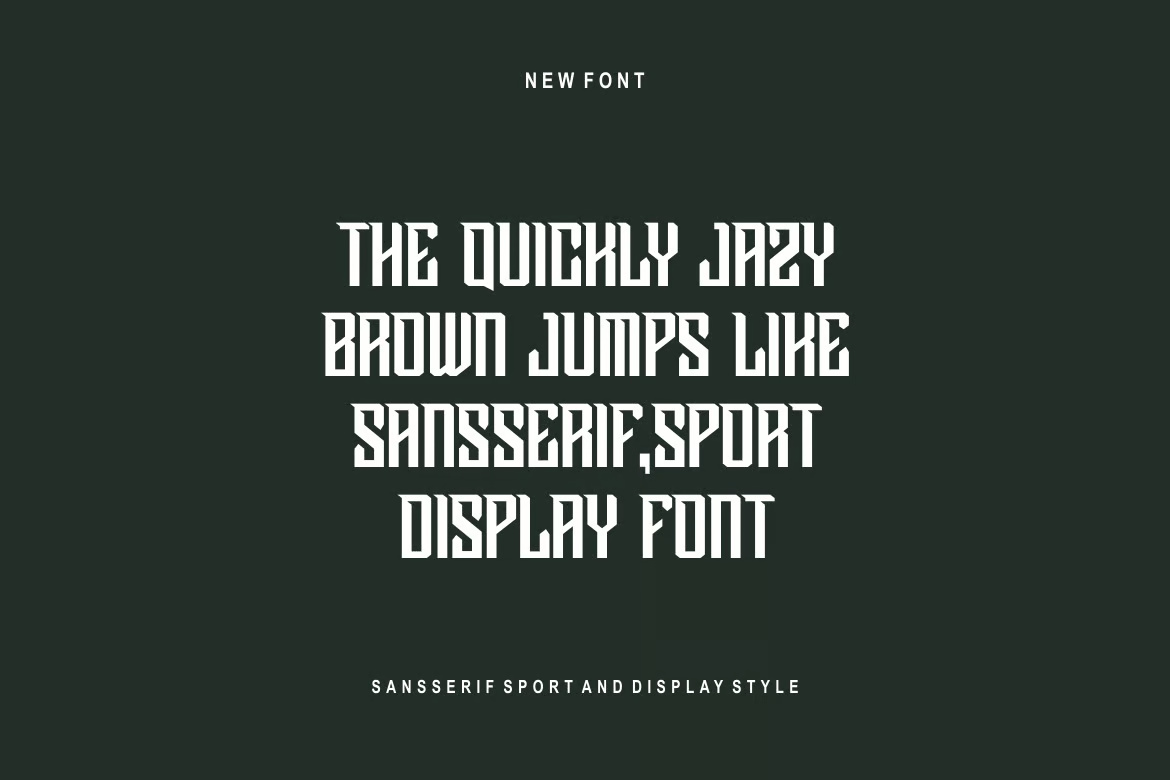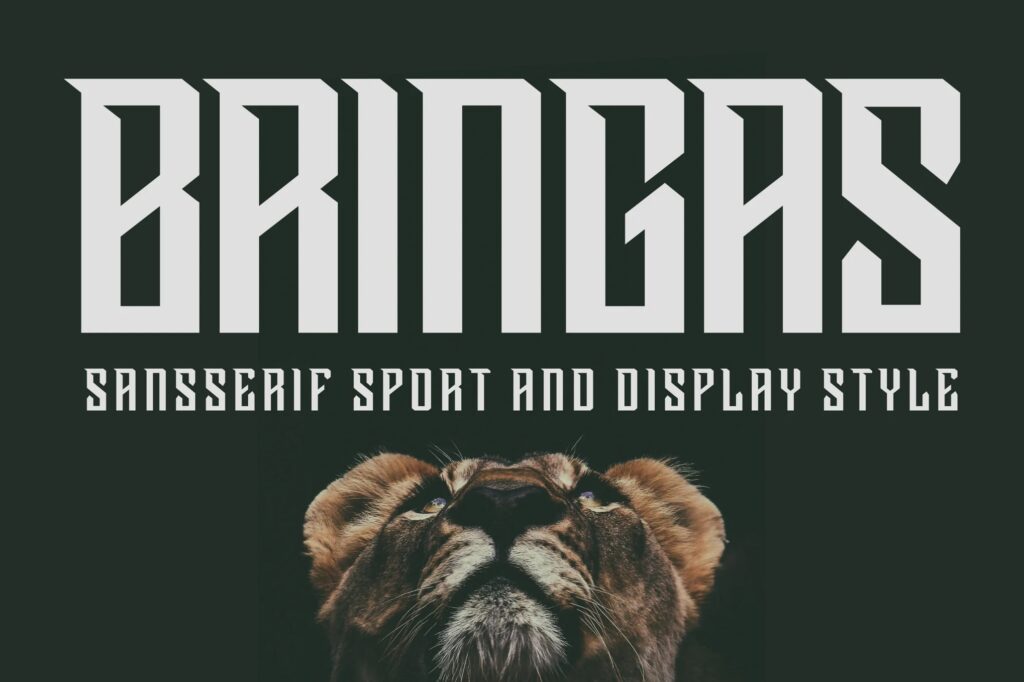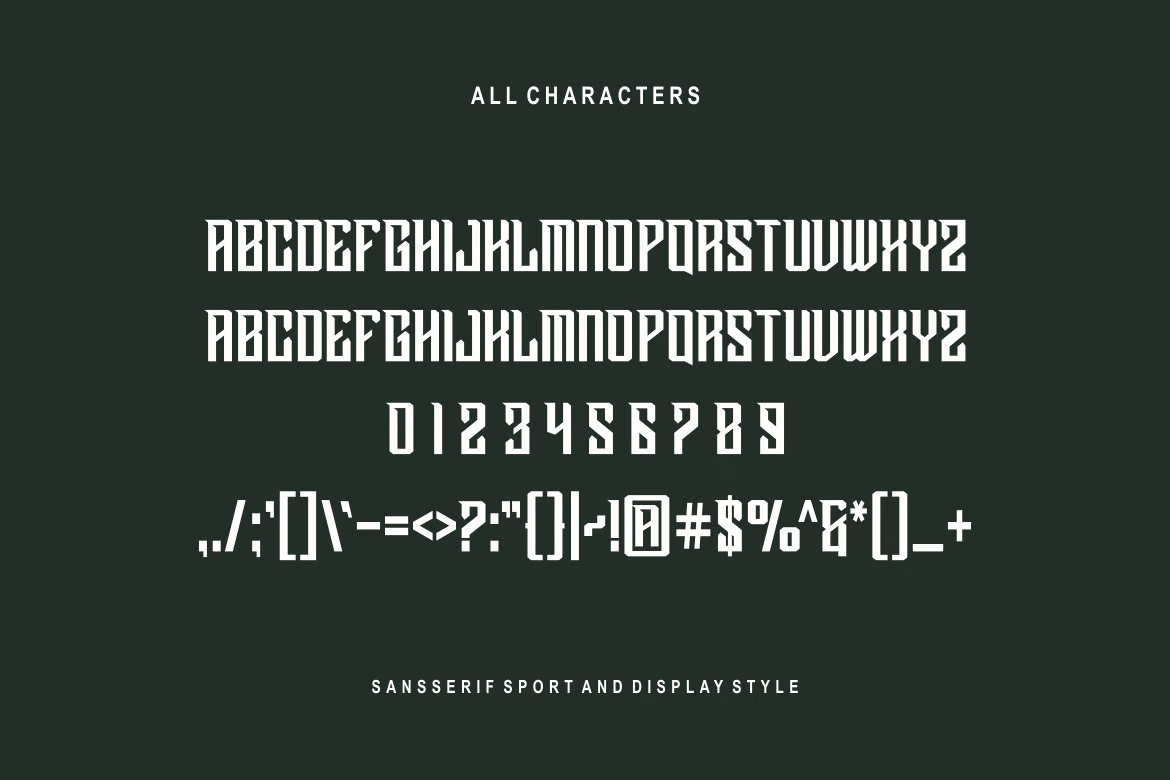
Bringas Sport Display Font
Bringas is a bold and authentic display font designed to make a statement. Its strong, contemporary style makes it perfect for any branding project, from logos to headlines, advertisements, and more. With clean lines and a confident presence, Bringas offers a unique character that stands out in both print and digital media. Ideal for businesses that want to convey strength and modernity, this font combines versatility with a bold aesthetic.
Bringas Sport Display Sans-Serif Font